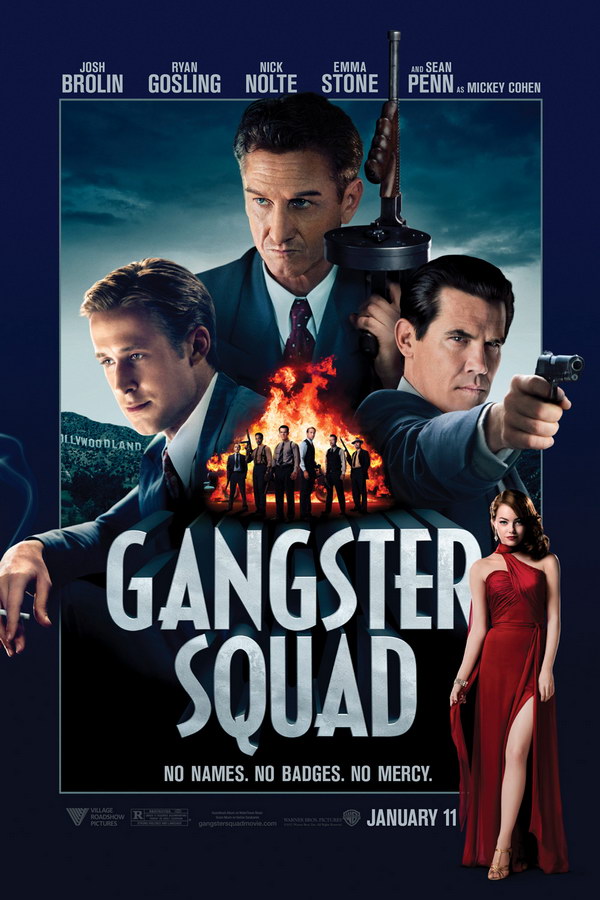
Gangster Squad Font
The title font in the Gangster Squad poster closely resembles Decotura, but with a slightly altered "Q". The font is a commercial one and additional information can be found here.